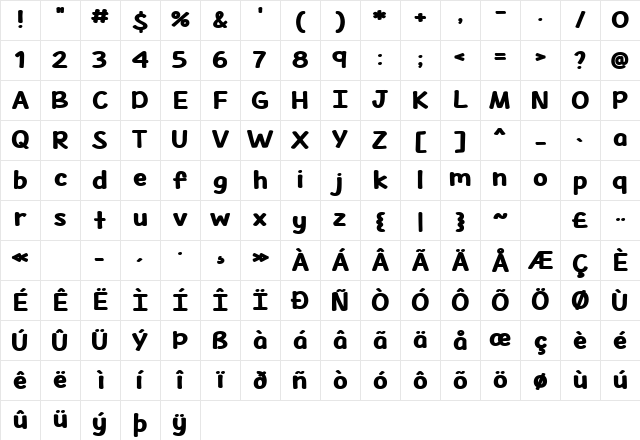
Middle of April Regular
Foundry: Misti's Fonts
Designer: Misti's Fonts
Design Context for Middle of April
Middle of April is a composed and adaptable typeface that performs quietly and consistently across a wide range of design contexts.